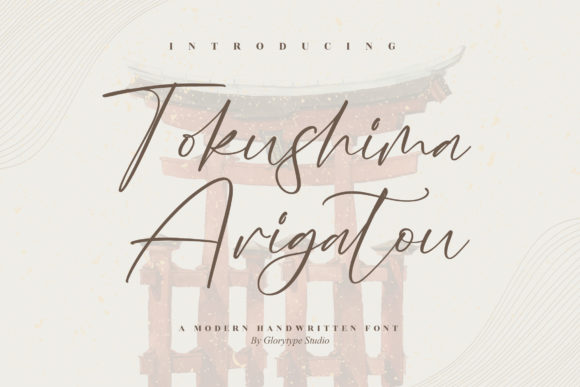
Introducing Tokushima Arigatou, a script font that will capture your heart with its exquisite beauty and charm. This captivating font, crafted by the talented Glorytype Studio, invites you to embark on a journey of creativity and self-expression.
Tokushima Arigatou is adorned with an array of OpenType features that elevate its versatility, making it the perfect choice for a multitude of design projects. Its PUA encoding ensures effortless access to a world of glyphs and ligatures, empowering you to add a touch of elegance and sophistication to your creations.
Whether you seek to craft stunning website content, design eye-catching social media posts, or create heartfelt invitations, Tokushima Arigatou will effortlessly elevate your work to new heights. Its delicate strokes and graceful curves dance across the page, evoking a sense of warmth and authenticity that will resonate with your audience.
Indulge in the beauty of Tokushima Arigatou and let its mesmerizing presence transform your designs into works of art. Experience the joy of creating with a font that embodies both elegance and playfulness, a font that will ignite your imagination and inspire your creativity.